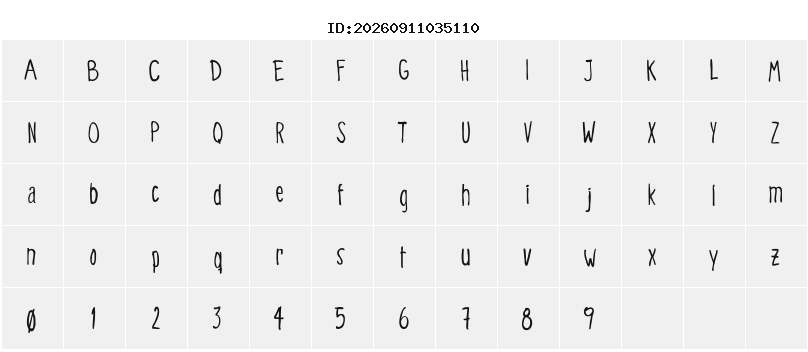
Verduleira Preview
• Font Name: Verduleira
• Full Font Name: Verduleira
• Designer: Patricio Luna
• Manufacturer: Pato Luna
About Verduleira.ttf
Verduleira.ttf is a modern, elegant sans-serif font designed for ultimate readability and visual harmony. Perfect for branding, headlines, web design, and print materials.